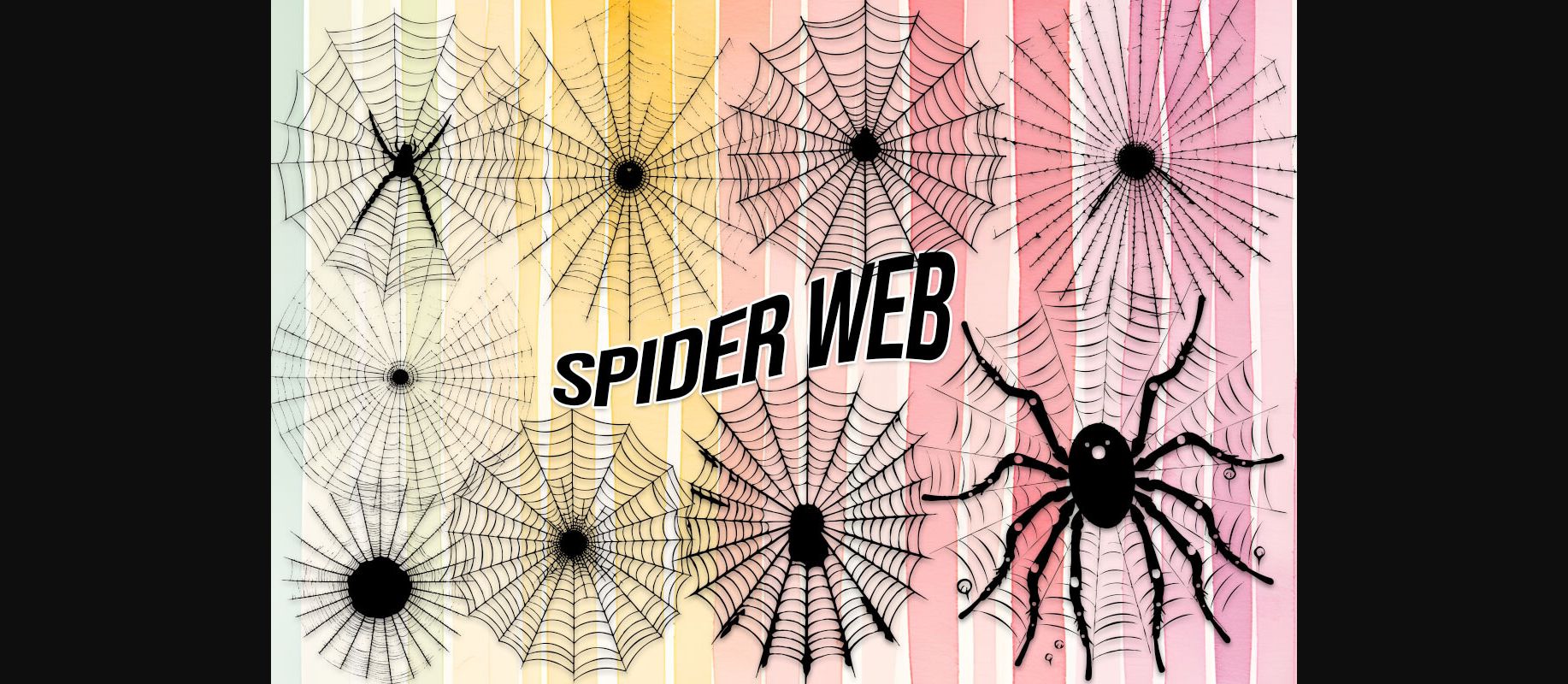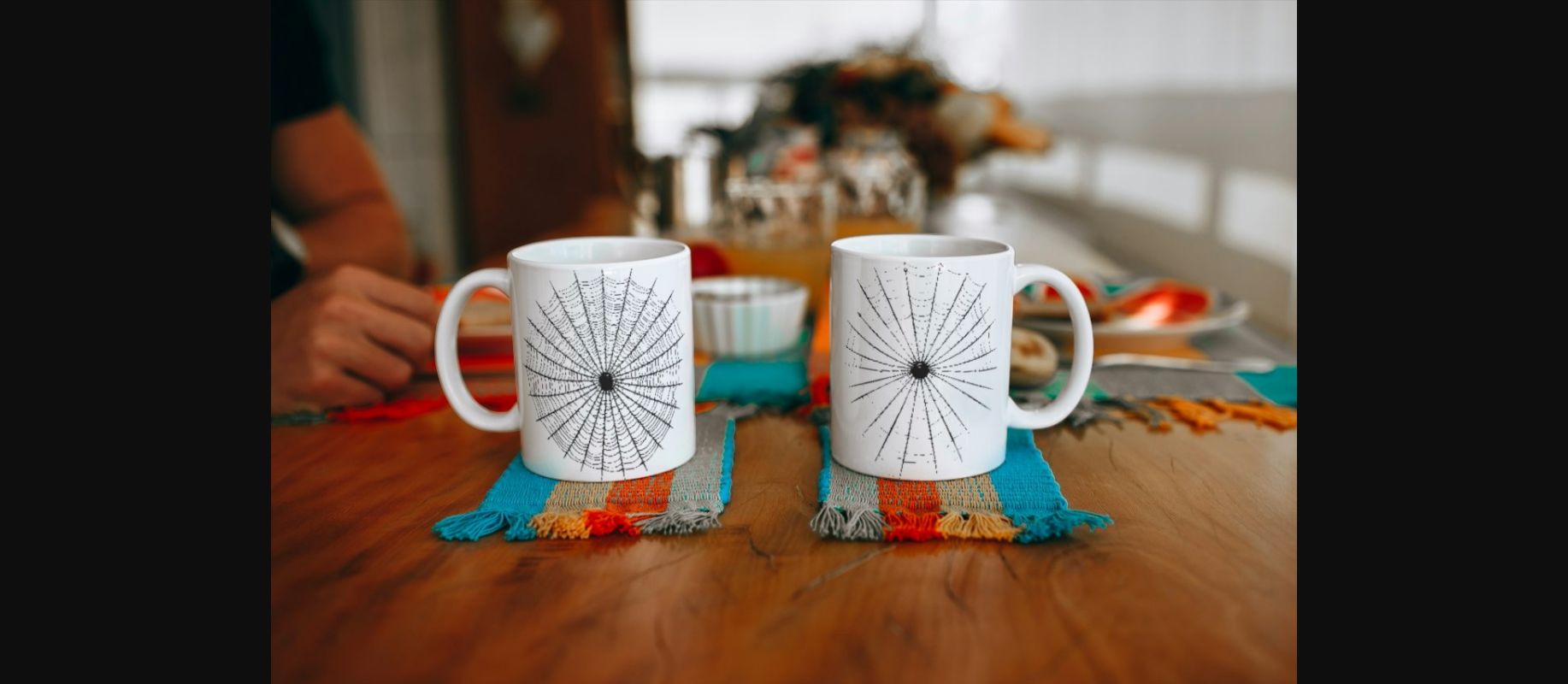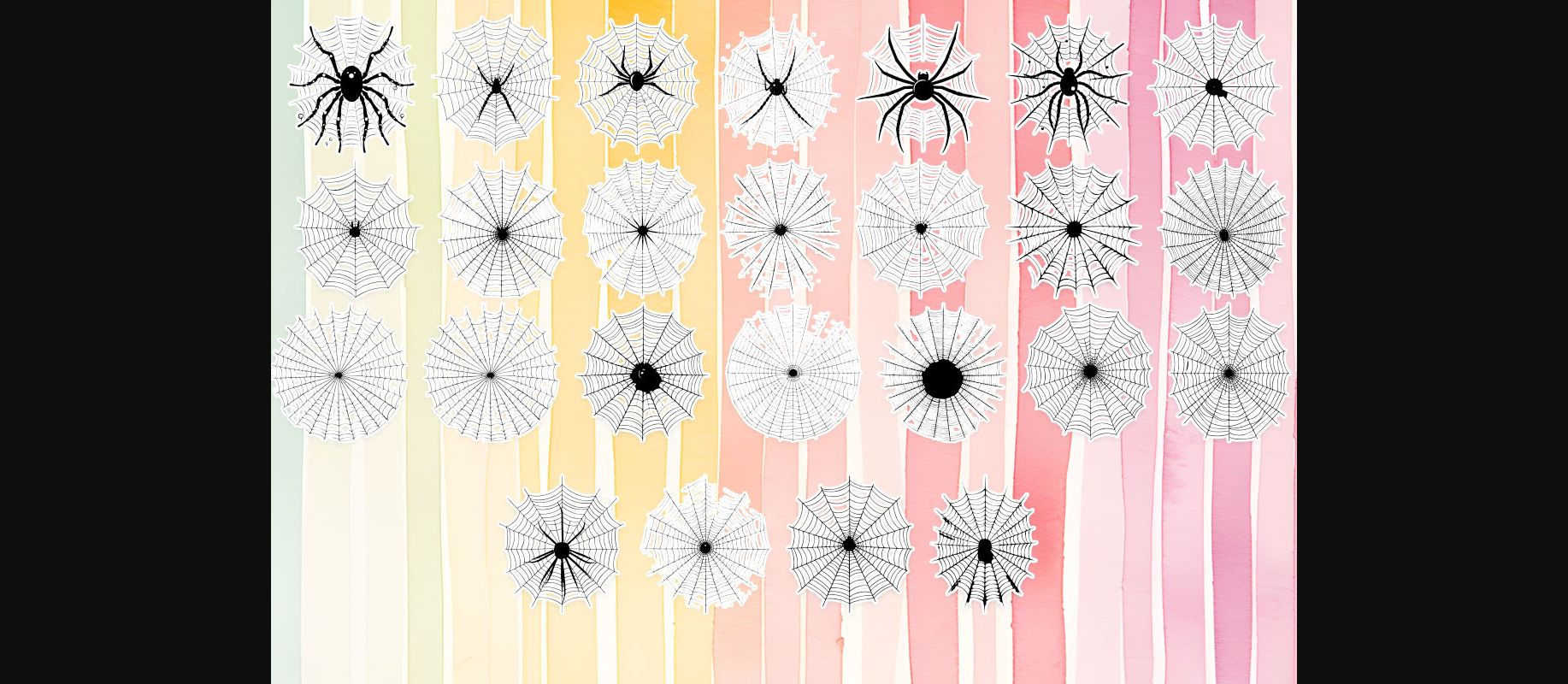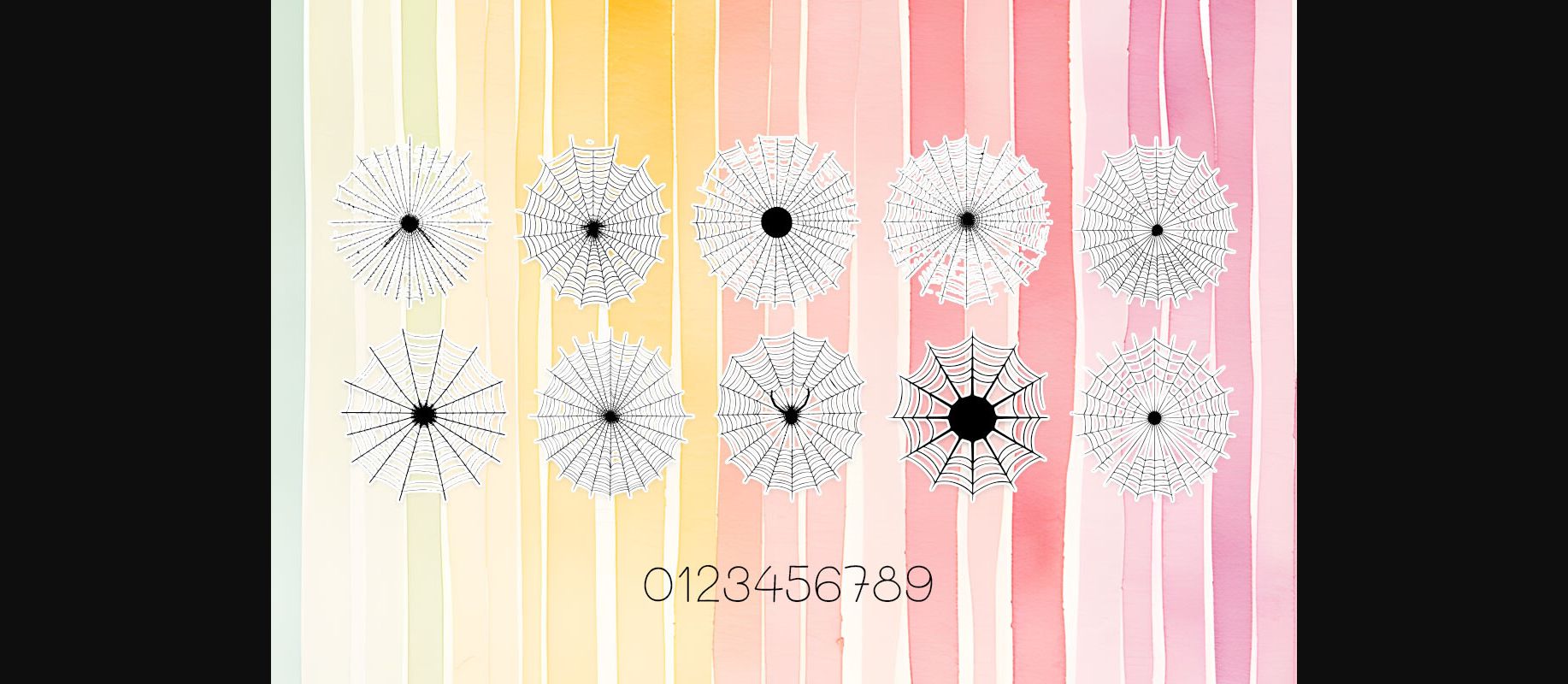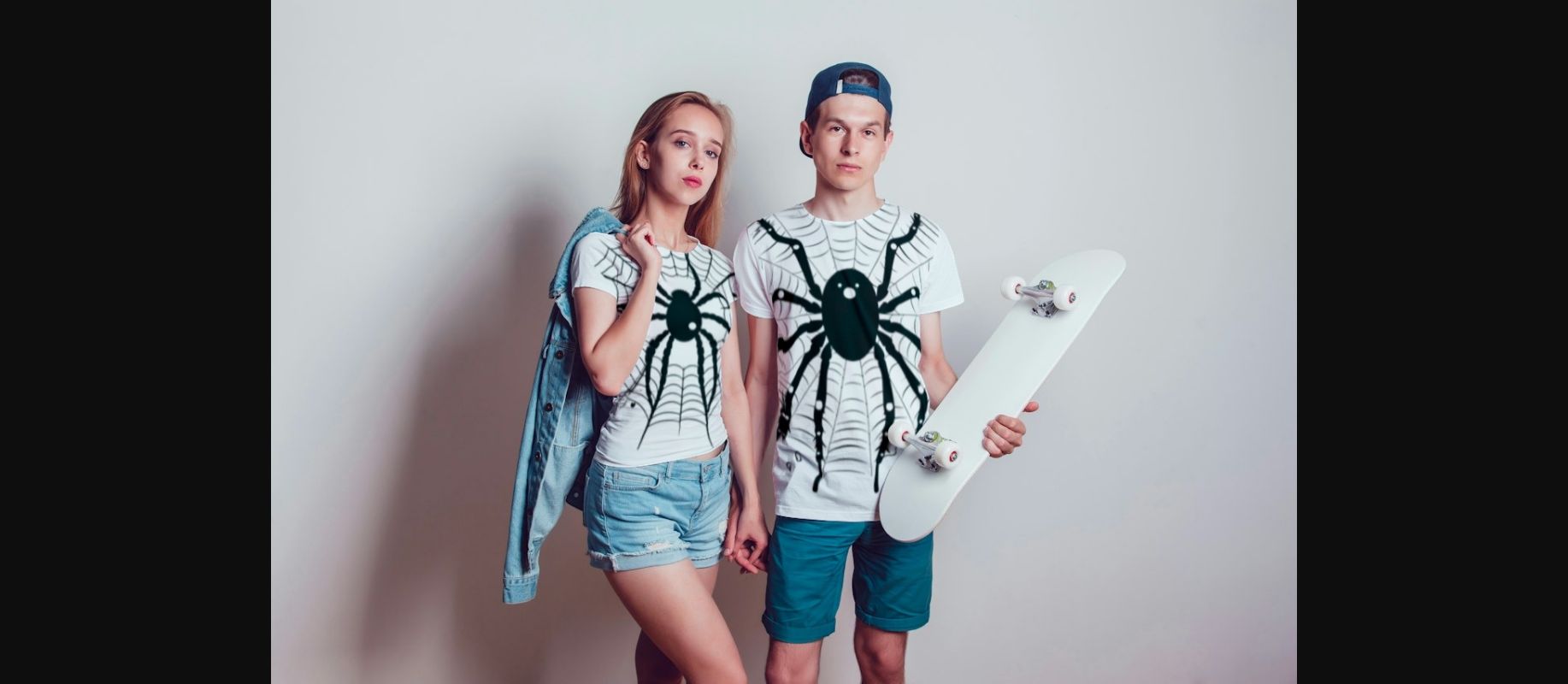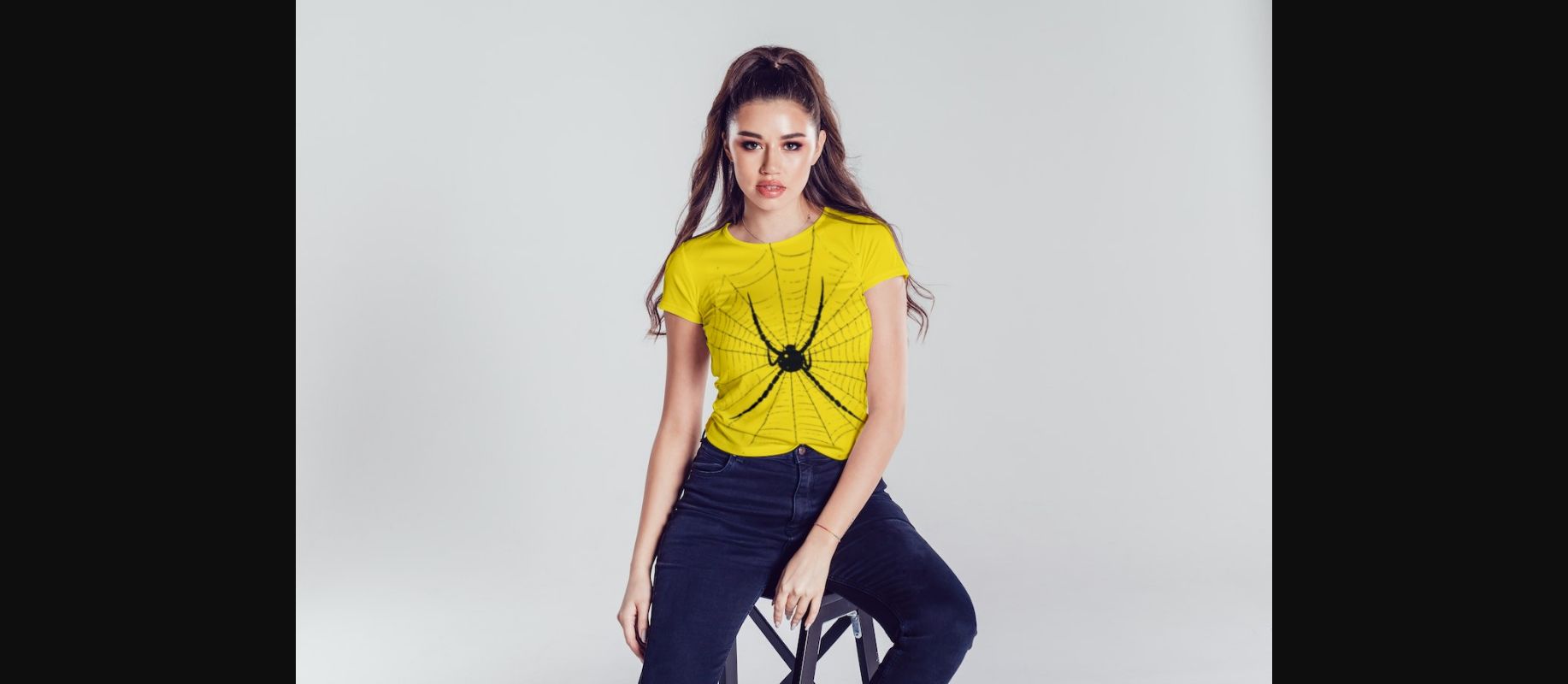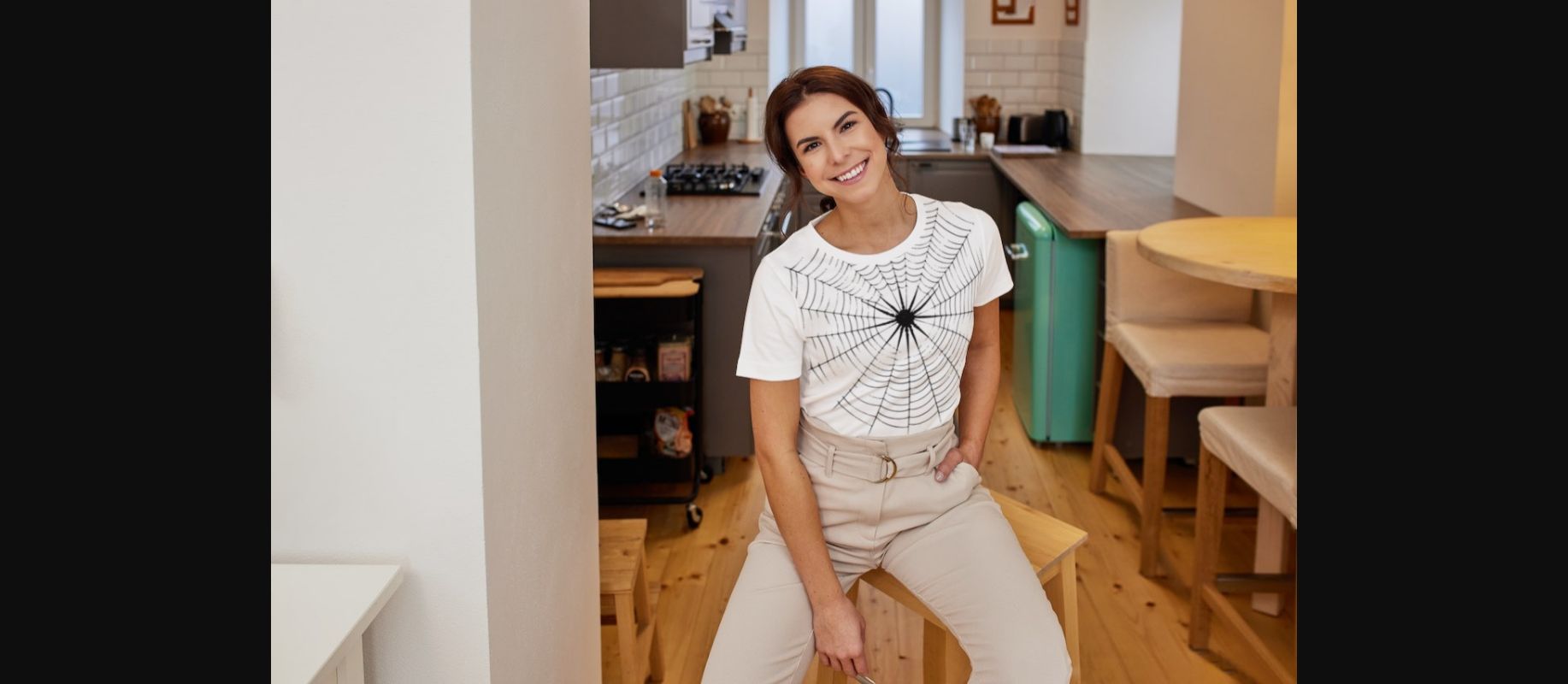
Spider Web Font
About Spider Web Font
Introducing “Spider Web Fonts,” a unique set comprising 36 characters, including 26 uppercase letters and numbers 0-9. This font collection captures the intricate and captivating essence of spider webs, offering a distinctive touch to your designs. Ideal for adding an enigmatic and unconventional vibe to your typographic projects.